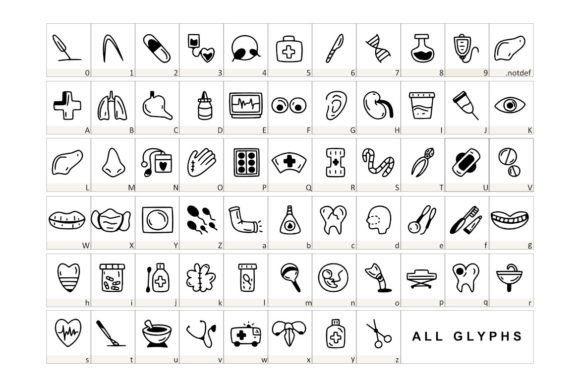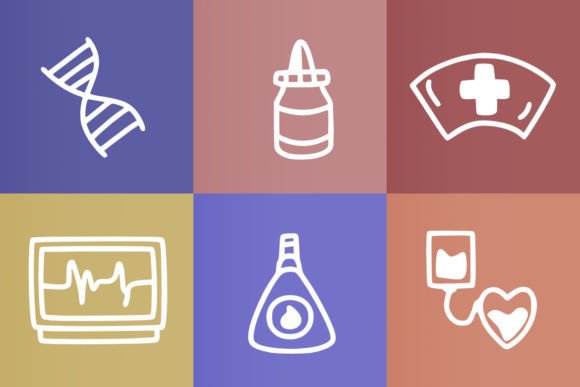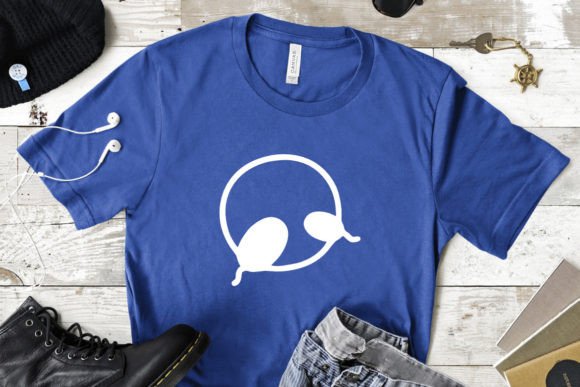
Introduction to Hospitalable Font
Hospitalable is a fun and useful dingbats font perfect for a wide variety of projects.
Use it for stickers, posters, t-shirts, cards, apparel graphics, etc ; you will love the results.
Key Features of Hospitalable Font
Why Choose Hospitalable Font?
Hospitalable Font offers exceptional quality and versatility, making it a valuable addition to your design toolkit. Whether you’re creating for personal projects or commercial use, Hospitalable Font delivers professional results.